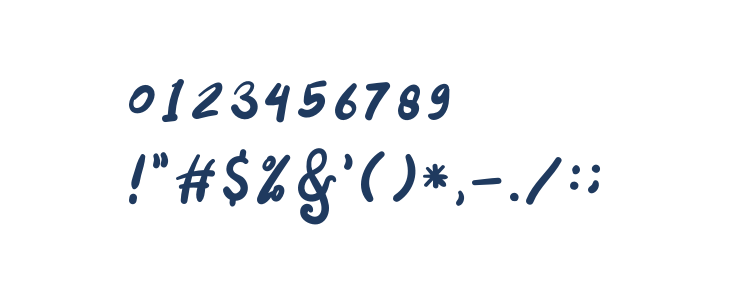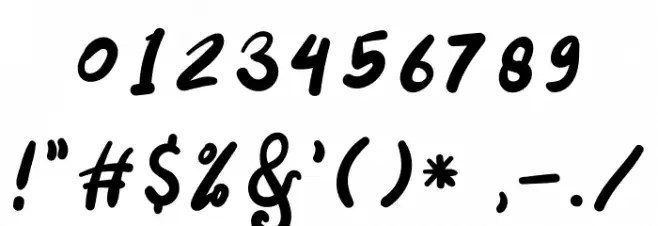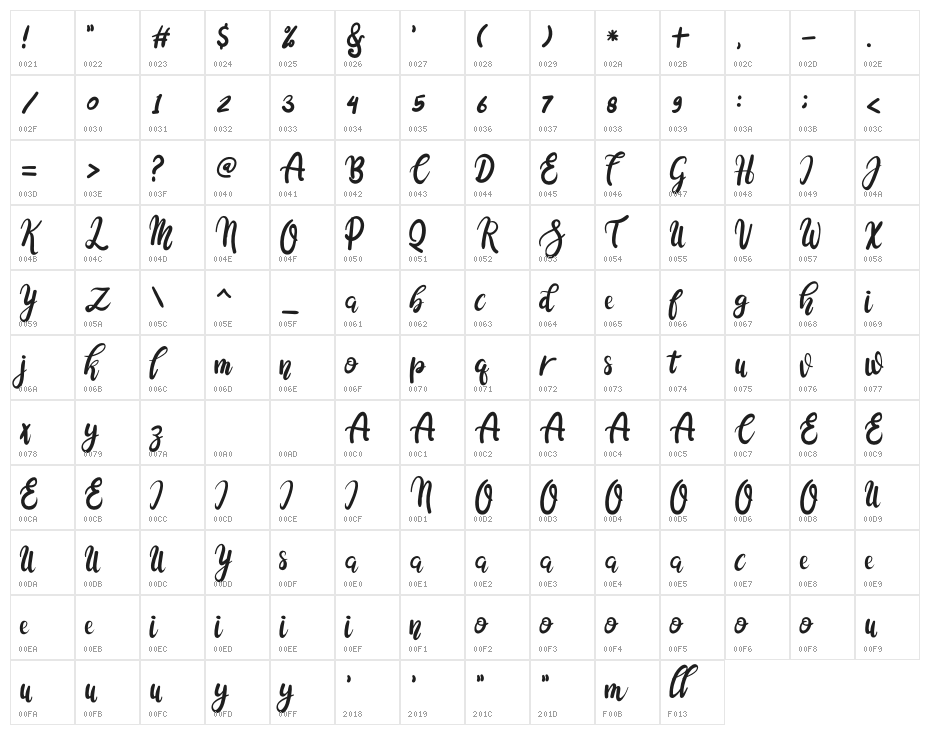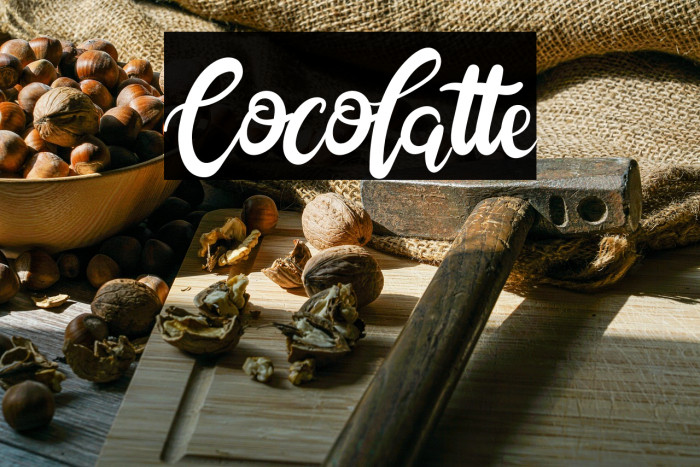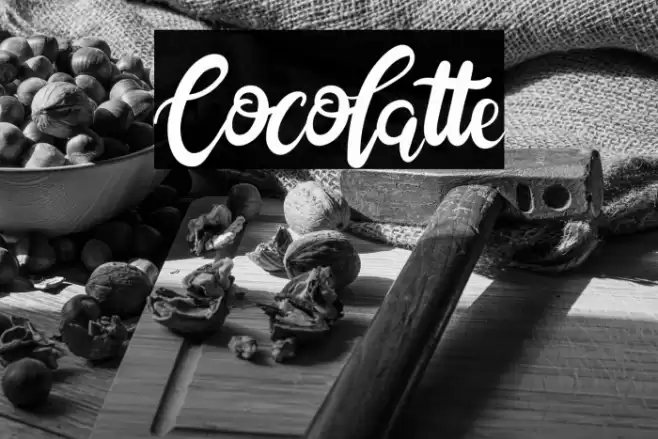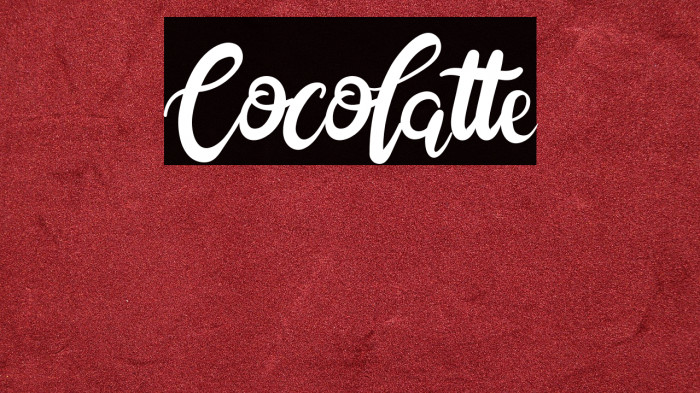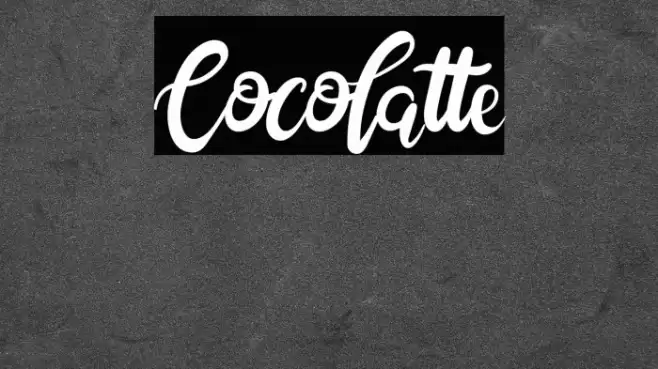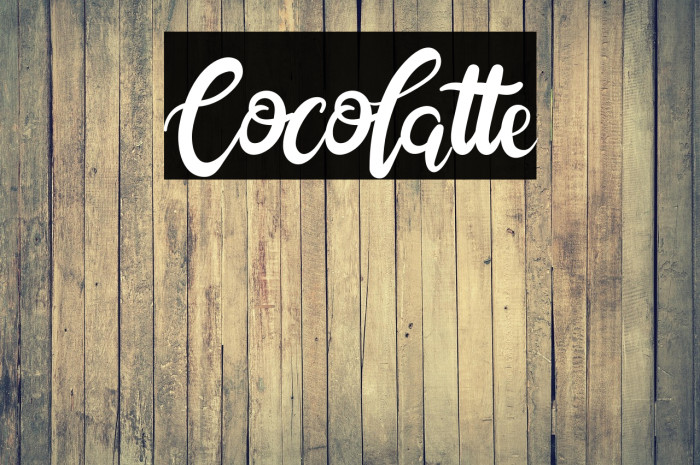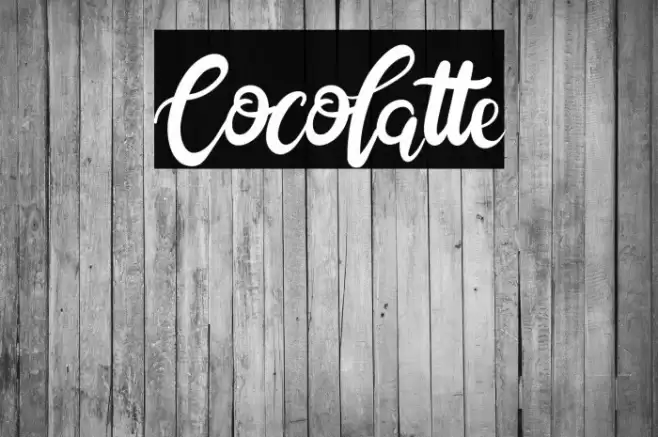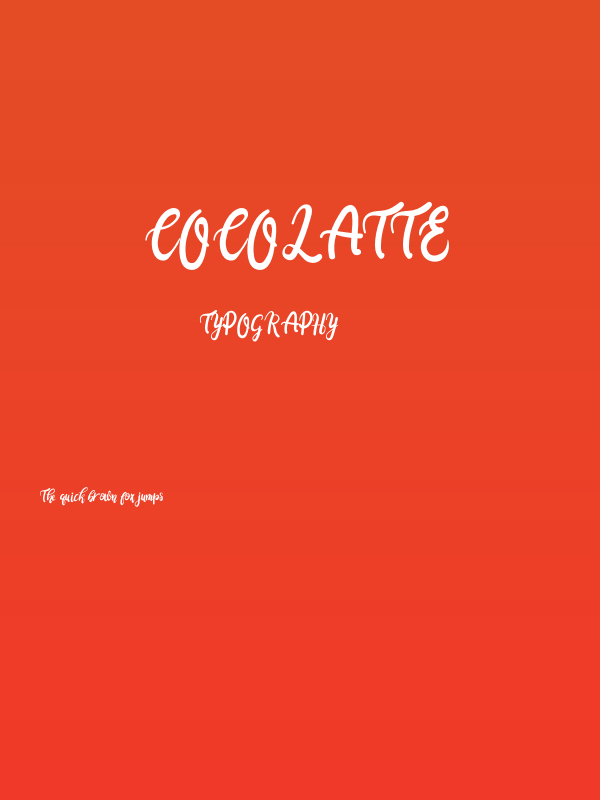
Cocolatte Font
Cocolatte Description
This font features a bold and expressive script style, characterized by its flowing, cursive letterforms. The uppercase letters are particularly striking, with dramatic loops and swashes that give the font a sense of movement and elegance. The lowercase letters maintain a consistent style, with rounded forms and smooth connections between characters. The numerals are equally stylized, fitting seamlessly with the overall aesthetic. Special characters are designed with the same attention to detail, ensuring a cohesive look across all glyphs. This font's bold strokes and dynamic shapes make it ideal for creating eye-catching designs.
Use CaseLogos, Headlines, Invitations
Proposed ProjectsIdeal for branding, invitations, logos, and decorative headlines.